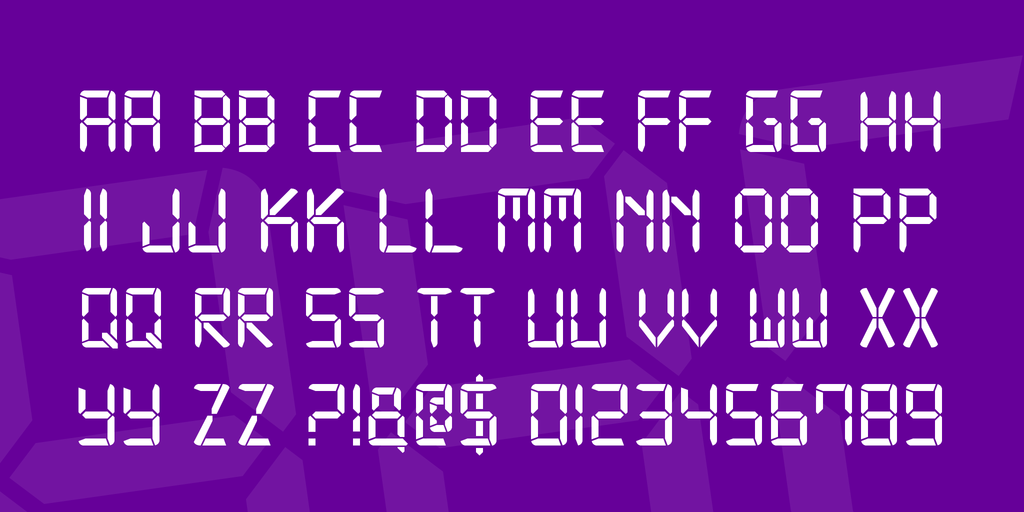
What Font Looks Like Digital Numbers
And it doesn’t include alphabet characters. Electronic highway sign made by ash pikachu font is a totally free and good looking digital clock. It’s a clean font and looks great in all caps with its long, rounded strokes.
Anyone know the name of any free fonts that look like calculator numbers? We have 11 free digital, clock fonts to offer for direct downloading · 1001 fonts is your favorite site for free fonts since 2001 Lcd stands for liquid crystal display, the information display technology used in products such as digital watches and clocks.
Click to find the best 31 free fonts in the calculator style. You know the ones from digital calcualtors and clocks where you. A monospaced font like vt323 would be better.